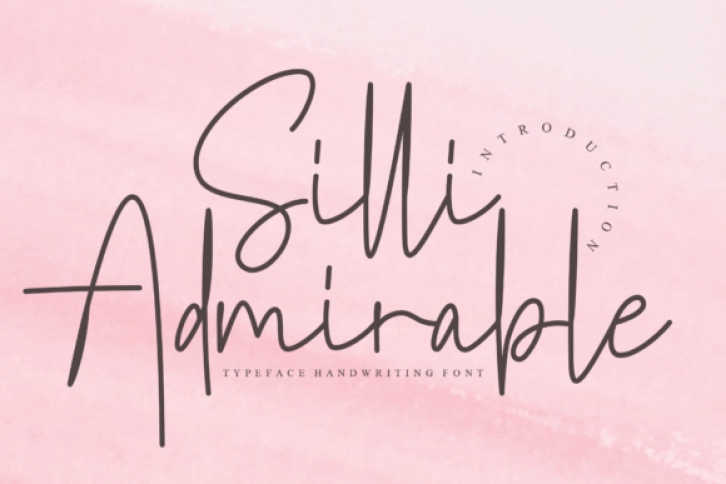
Silli Admirable is a stylish and fashionable script font. It has a clean, thin and smooth vibe and it will be a hit for any design that you want to add it to.